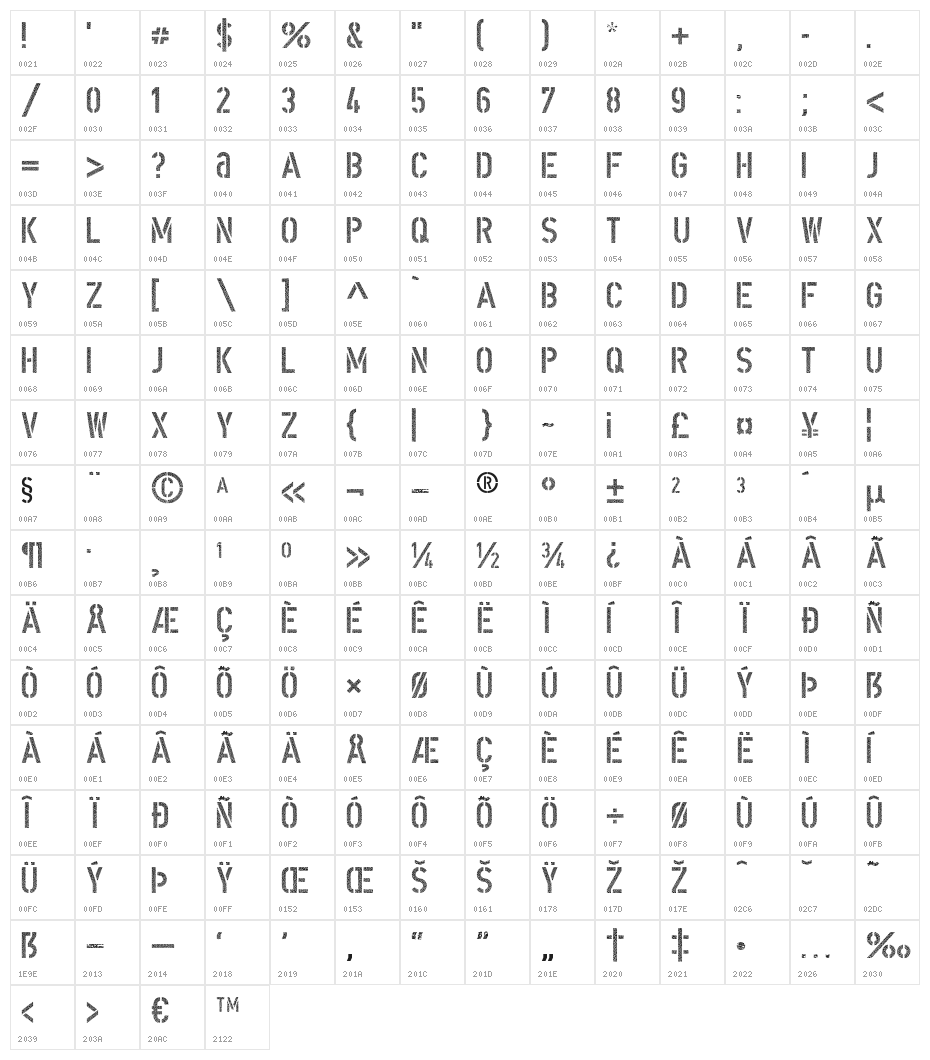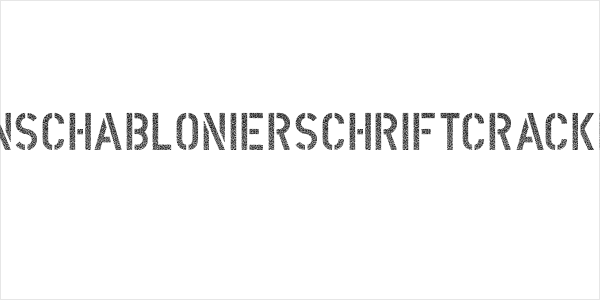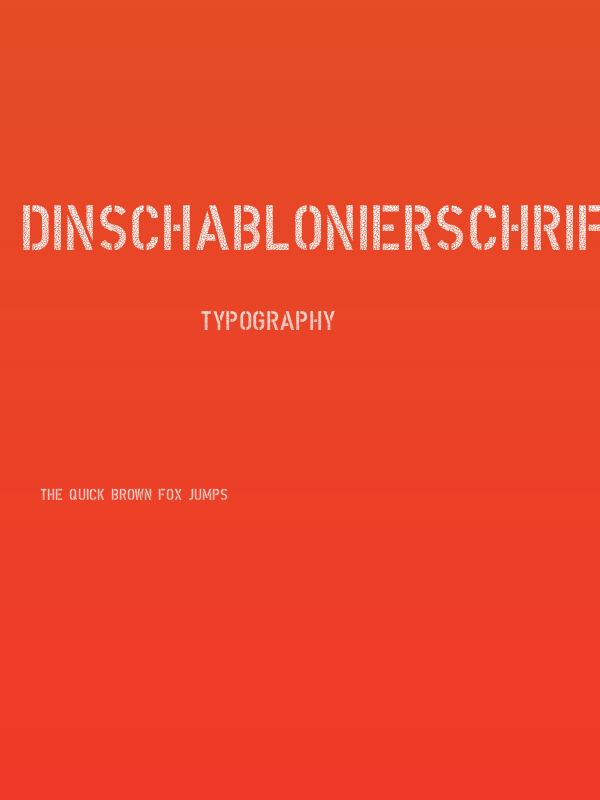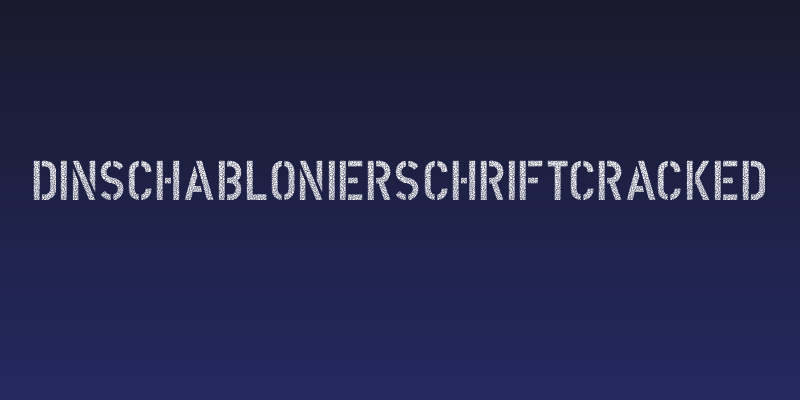
DINSchablonierschriftCracked Font
DINSchablonierschriftCracked Description
This font features a bold, stencil-like design with a cracked texture that gives it a rugged, industrial feel. The uppercase letters are uniform in height and width, creating a strong, impactful presence. The characters are well-defined with sharp edges, and the cracked effect adds a layer of complexity and visual interest. The numbers and special characters maintain the same stylistic approach, ensuring consistency across all elements. This font is ideal for projects that require a bold statement or an edgy, distressed look.
| Overall Style | Industrial, Rugged |
| Proposed Projects | Ideal for posters, album covers, branding for industrial products, or any design needing a bold, distressed aesthetic. |